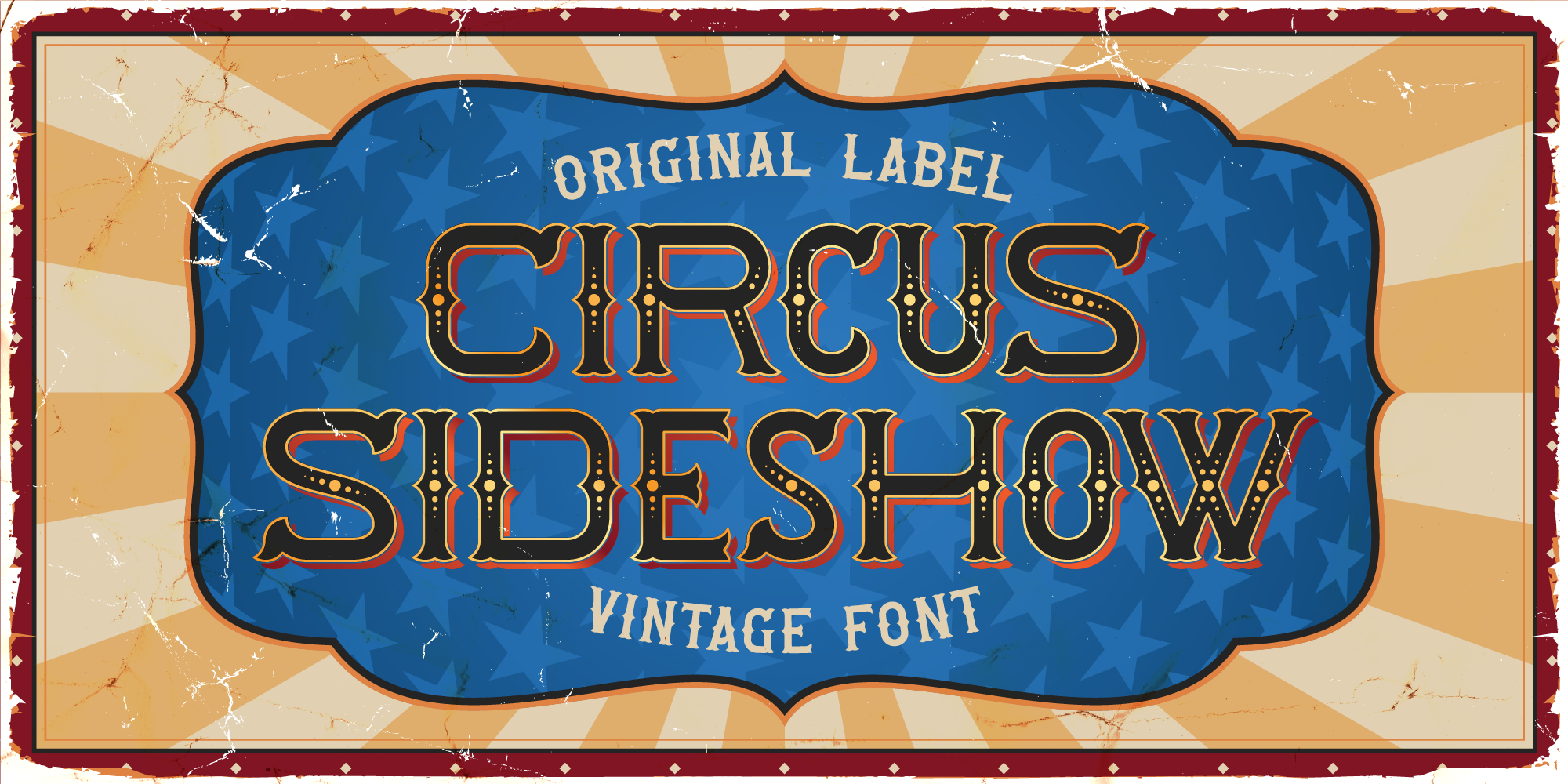
The Circus Sideshow Font Free Download is ideal for vintage posters, carnival signage, t-shirt designs, and retro logos, offering a bold, theatrical aesthetic.
This font is exciting because its vintage label style, inspired by classic circus posters, delivers a vibrant, nostalgic charm perfect for eye-catching designs.
The Circus Sideshow family includes Regular, Shadow, Rough, Rough Texture, Texture FX, and Shadow FX styles, providing diverse options for creative projects.
Step right up to the Circus Sideshow Font Free Download, a vintage display typeface designed by Oleg Voznyy and published by Vozzy. With six dynamic styles—Regular, Shadow, Rough, Rough Texture, Texture FX, and Shadow FX—Circus Sideshow captures the bold, theatrical essence of 19th-century circus posters. Perfect for crafting striking headlines, labels, or promotional graphics, this font supports multiple formats (OTF, TTF, WOFF) for seamless use in print and digital platforms. Its playful yet rugged aesthetic makes it a standout choice for carnival-themed branding or retro merchandise. As 2025 design trends embrace nostalgic, high-energy typography, downloading Circus Sideshow Font Free Download ensures your work dazzles. Test it today at myfonts.com to explore its vibrant potential, and consider purchasing for commercial use to fully leverage its show-stopping style.